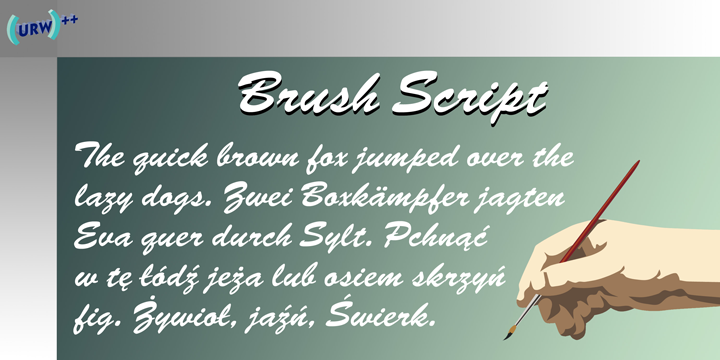
Brush Script Font is perfect for casual restaurant signage, handmade craft labels, vintage advertising campaigns, artisanal product packaging, creative workshop materials, personal invitation designs, organic food branding, boutique store graphics, hand-lettered social media posts, and warm greeting card designs.
Brush Script Font is exciting because it captures the authentic charm and personal touch of hand-painted lettering through its flowing, expressive strokes that evoke warmth, creativity, and human craftsmanship while delivering messages with genuine personality and approachable elegance.
Brush Script Font family includes Regular, Bold, Light, Condensed, Italic, Rough, Distressed, and Vintage variations, providing designers with a complete collection of handcrafted typography tools to create authentic visual experiences that feel personal and artistically crafted.
Brush Script Font embodies the timeless appeal of handcrafted artistry and personal expression, making it an invaluable tool for brands and creators who want to establish genuine connections with audiences through authentic, human-centered design. This expressive typeface brings warmth and personality to any design project, whether you're developing artisanal product branding, creating community event materials, or designing personal communications. The naturally flowing character design of Brush Script Font Free Download ensures maximum authenticity while maintaining excellent readability across both intimate print applications and friendly digital communications.
Small business owners consistently select Brush Script Font for local restaurants, craft shops, and personal service providers because of its ability to communicate approachability, creativity, and genuine care. The font's handmade appearance makes it particularly effective for targeting customers who value personal attention and authentic experiences over corporate polish.
Brush Script Font excels in applications where emotional connection and brand personality are essential. Creative entrepreneurs and artisan businesses leverage this font to create materials that feel genuinely personal and inviting, while content creators use it for social media graphics that stand out with authentic charm.
The hospitality and retail sectors have embraced Brush Script Font for cafes, farmers markets, and boutique establishments. Its handcrafted visual character helps businesses create welcoming environments that communicate personal care, local community connection, and artisanal quality, appealing to consumers who seek authentic experiences and meaningful relationships with the brands they support.